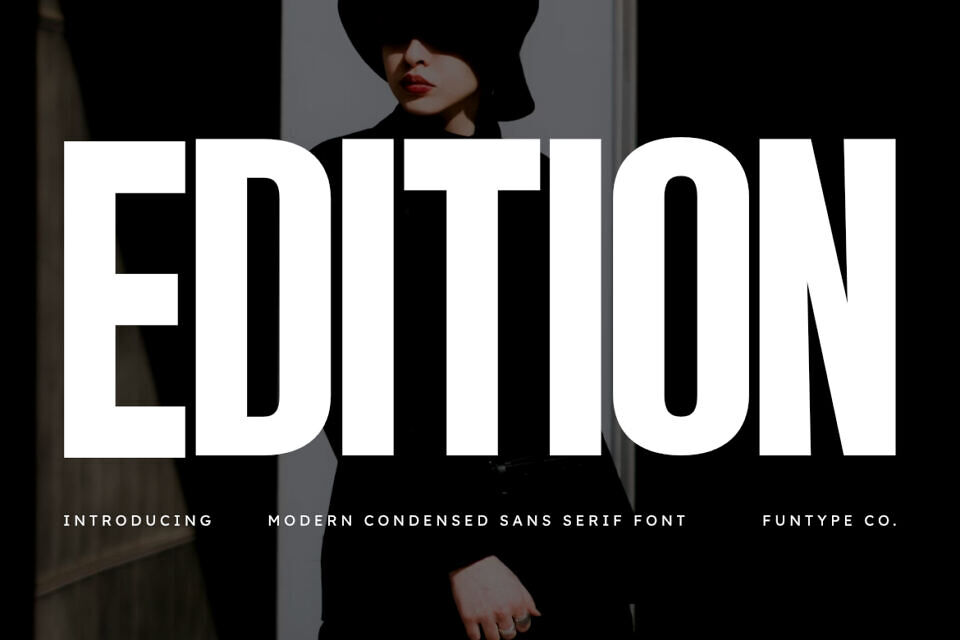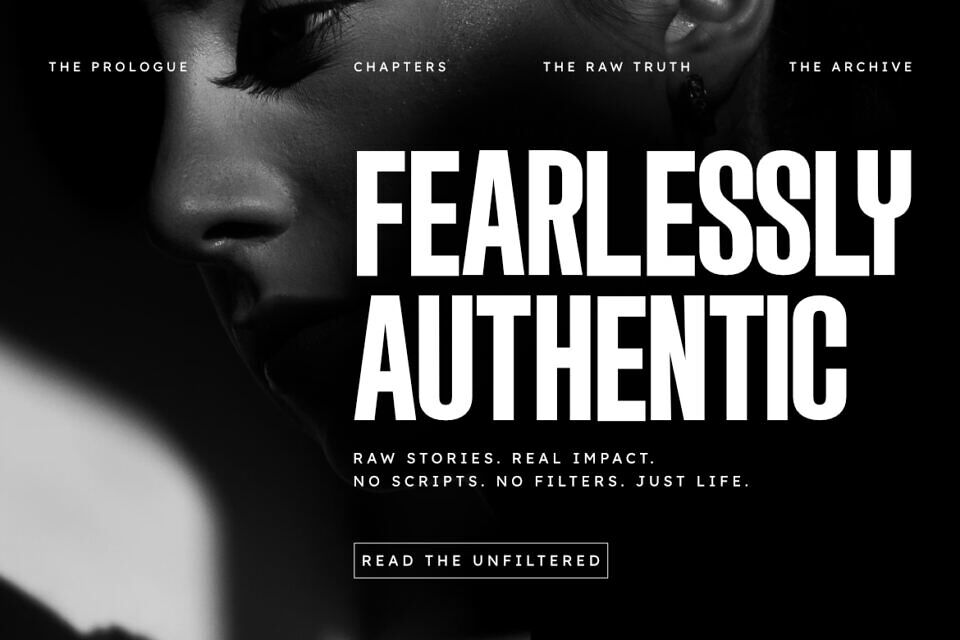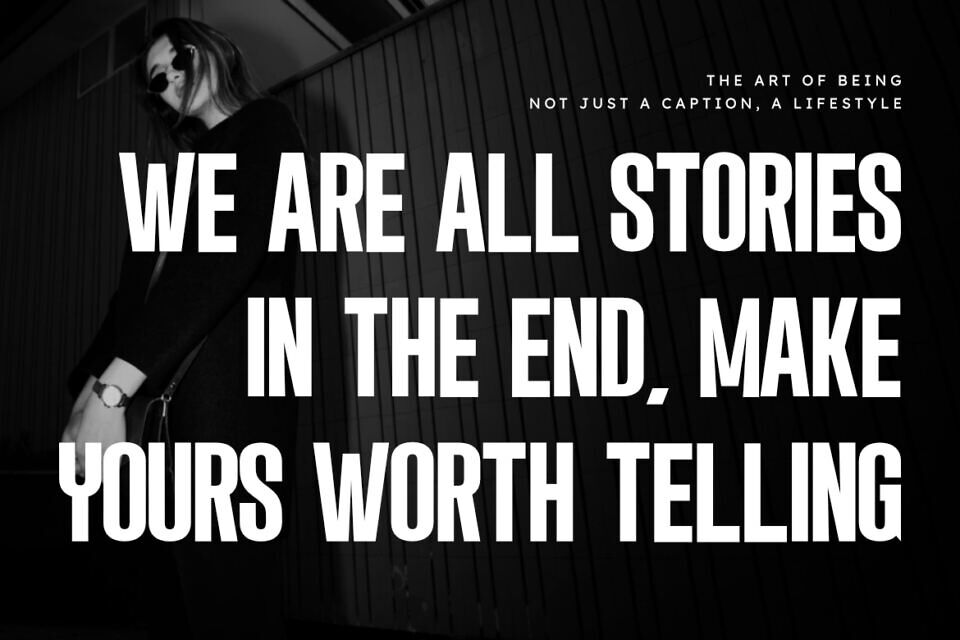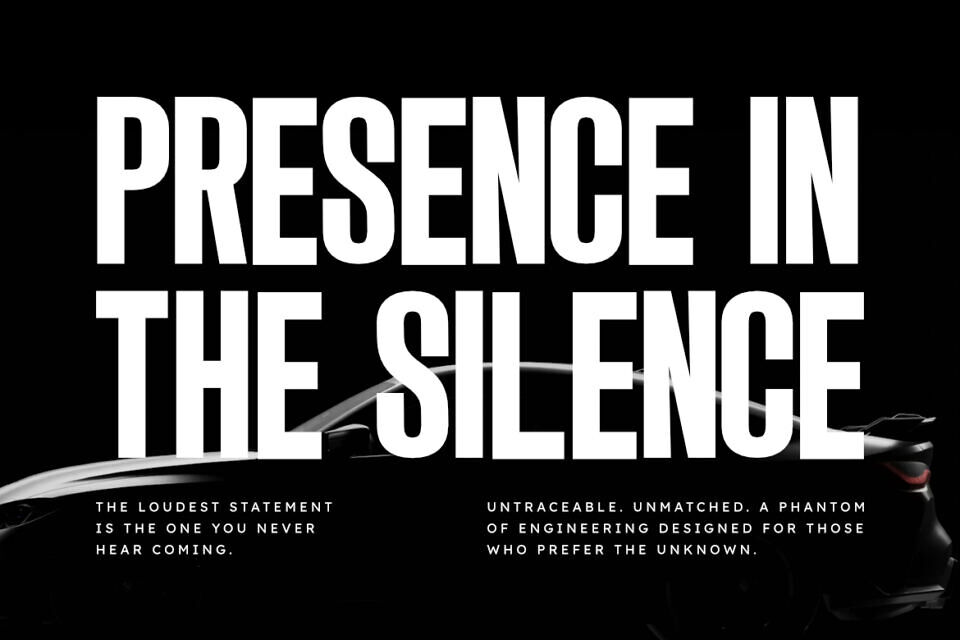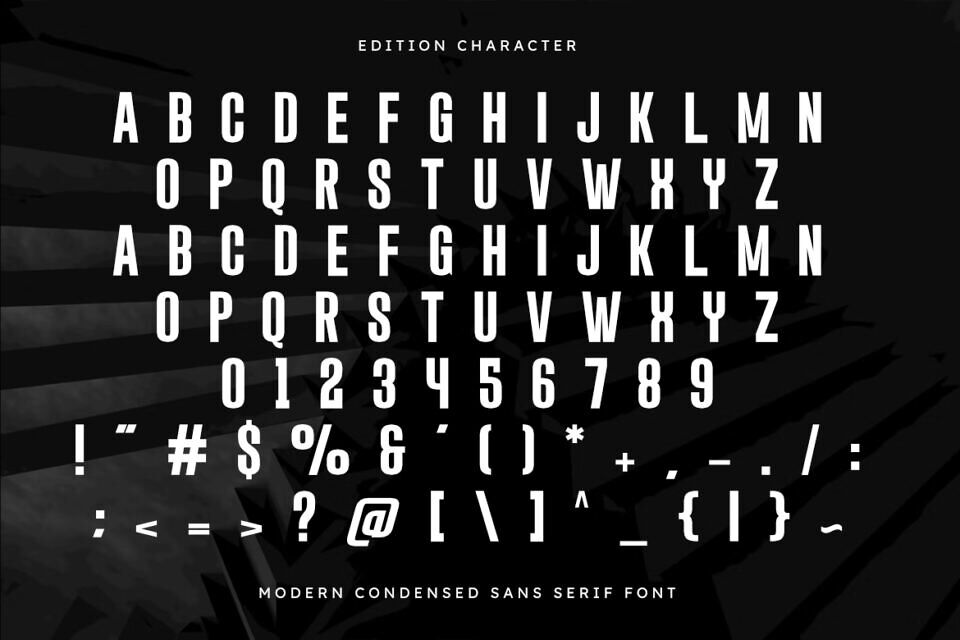
Edition is a high-impact, ultra-condensed sans serif typeface designed for powerful visual communication. Built with a tall, solid structure and thick geometric strokes, Edition is engineered for designers who need to command attention in compact spaces.
This font is an All Caps powerhouse, making it the perfect tool for creating dominant headlines, aggressive branding, and high-visibility editorial layouts. Its clean yet heavy presence provides a professional and industrial aesthetic that excels in modern posters, cinematic titles, and bold brand identities.